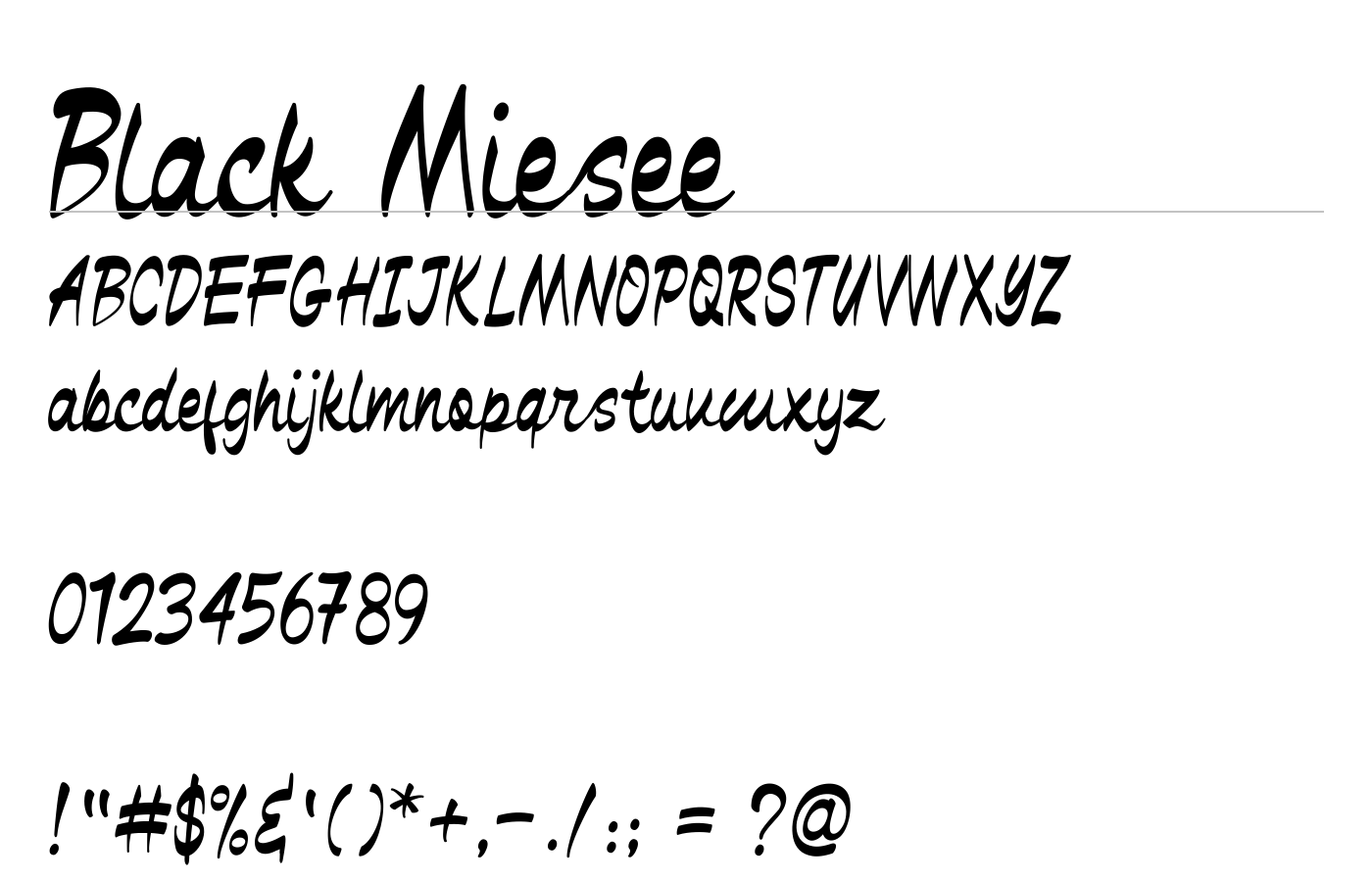
Black Miesee is a lively and bold script font with a hand-drawn feel, characterized by its smooth, flowing strokes and slightly condensed letterforms. It offers an informal yet confident personality, making it perfect for creative projects, casual branding, and eye-catching headlines. This playful and energetic typeface works well where a personal, friendly touch is desired, such as in logos, posters, and packaging that benefit from a handwritten, approachable style.
Black Miesee Font
About Black Miesee Font